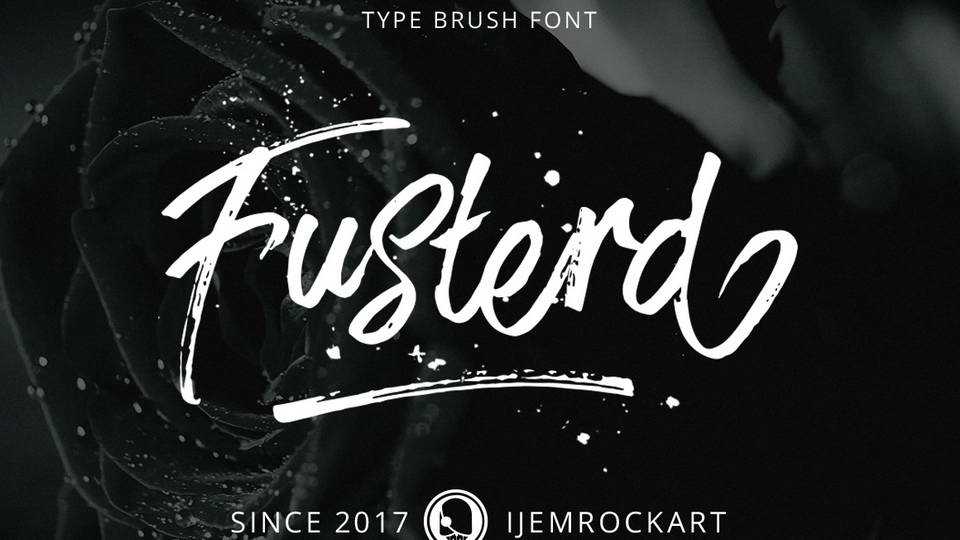
Download Fusterd Brush Script – a stylish contemporary brush font with unique flow. It’s perfect to use for prints, logos, quotes, badges, labels, packaging design, blog, websites, designs, headlines, banners, posters, printings, T-shirts, magazines, etc.
Designer: Pathero Studio